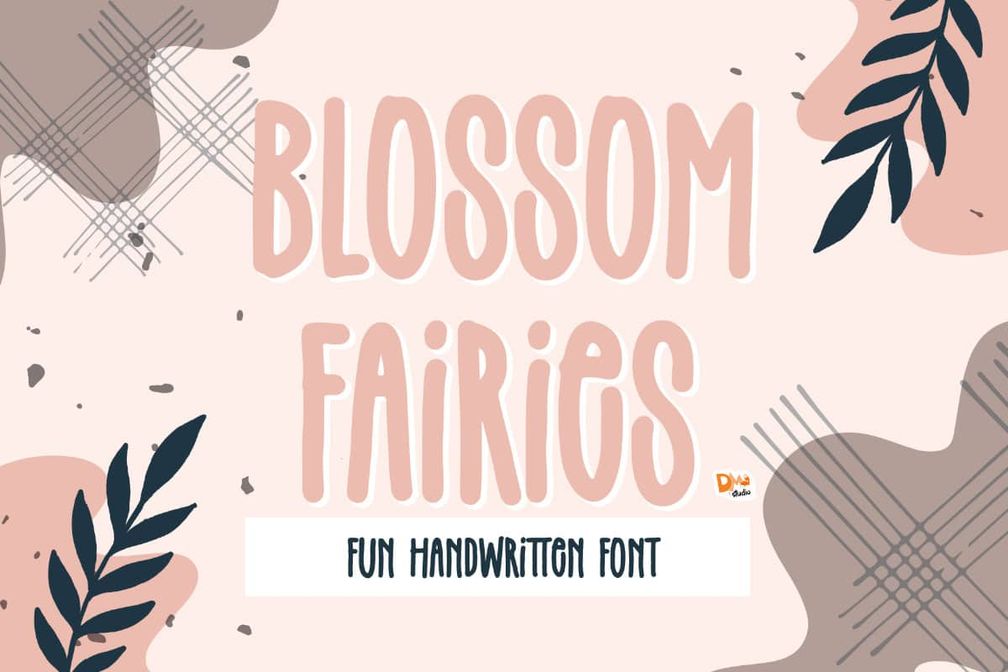
Blossom Fairies Font
Blossom Fairies Font is a whimsical and enchanting typeface designed to infuse your designs with magic and charm. With its delicate letterforms and graceful curves, this font is perfect for fairy tales, children’s books, invitations, and any project that requires a touch of fantasy and wonder.
1. Enchanting Design: Blossom Fairies Font features an enchanting design inspired by the world of fairies. Its delicate letterforms and graceful curves evoke a sense of magic and whimsy.
2. Versatile Usage: Ideal for a wide range of design projects, including fairy tale books, invitations, posters, and more, adding a touch of fantasy and charm to your creations.